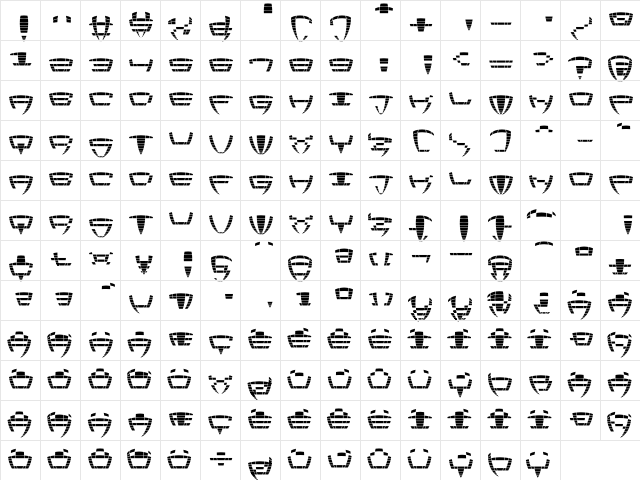
Black Audio Regular
Design Context for Black Audio Typeface
Black Audio is a composed and adaptable typeface that performs quietly and consistently across a wide range of design contexts.